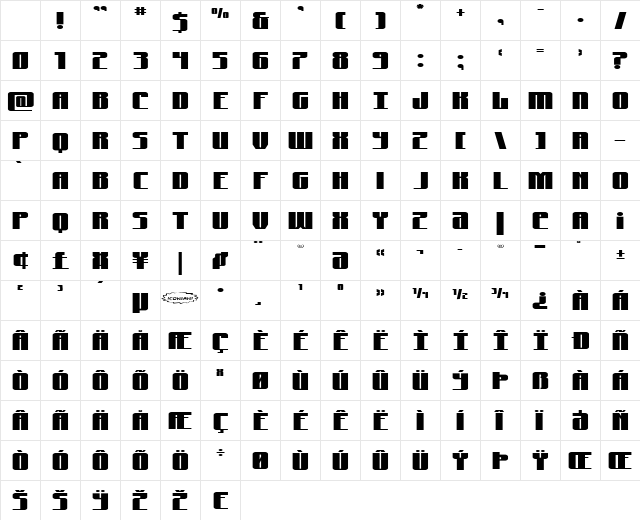
Complete Xeno-Seeker Wide Regular glyph index. Displaying only characters natively supported by Xeno-Seeker Wide Regular font.
Xeno-Seeker Wide is a composed and adaptable typeface that performs quietly and consistently across a wide range of design contexts.